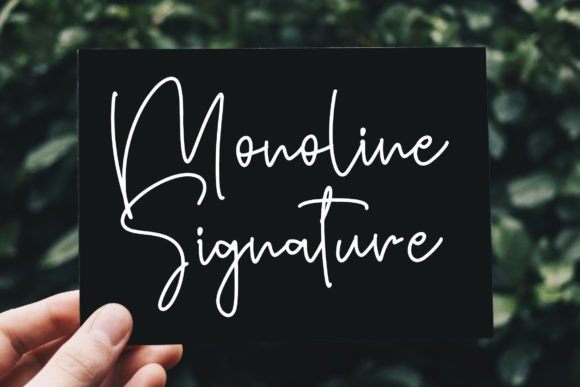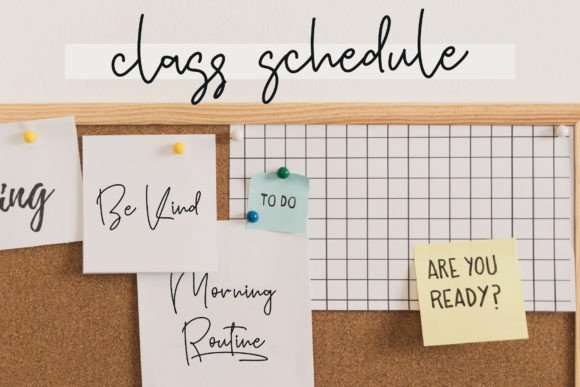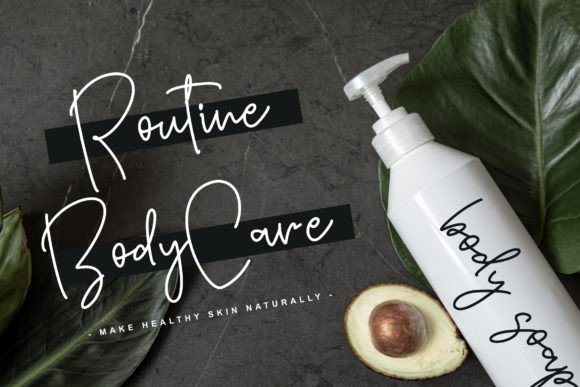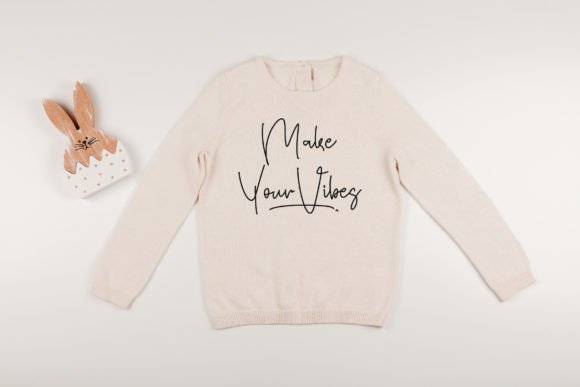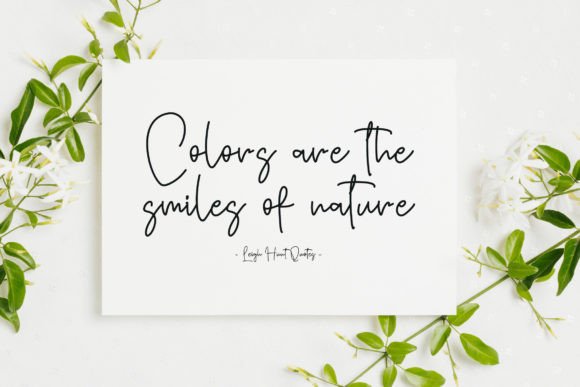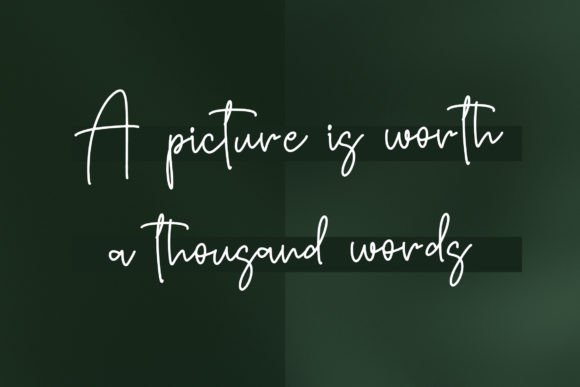
Introduction to Graffllest Font
Graffllest is a modern and stylish script font.
It is suitable for any projects such as logos, branding projects, homeware designs, product packaging, mugs, quotes, posters, shopping bags, t-shirts, book covers, name cards, invitation cards, greeting cards, labels, photography, watermark, special events, and all your other lovely projects that need a beautiful script taste .
Key Features of Graffllest Font